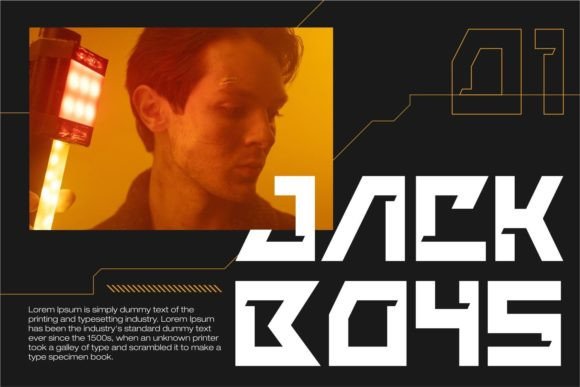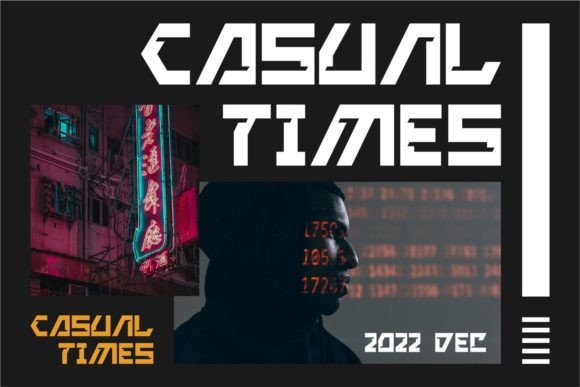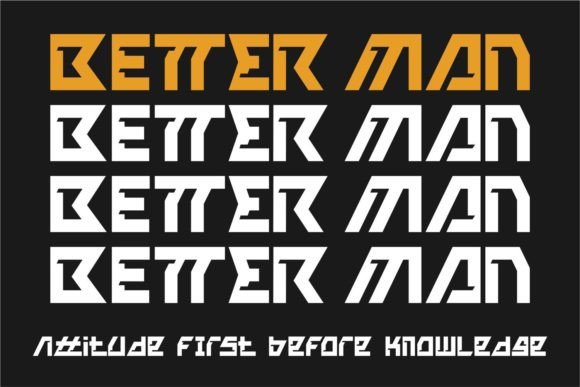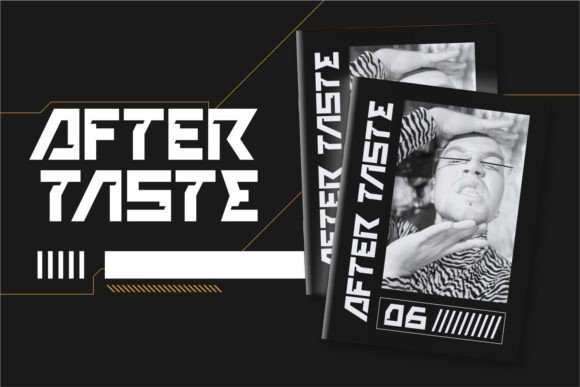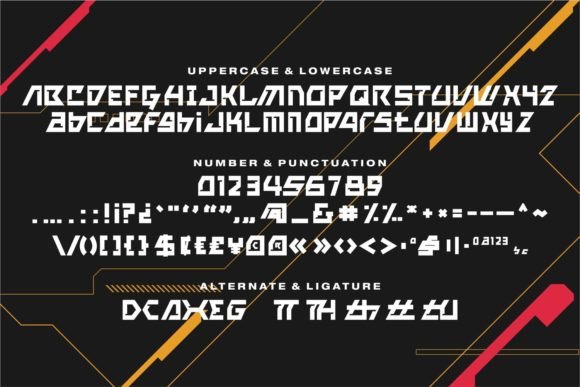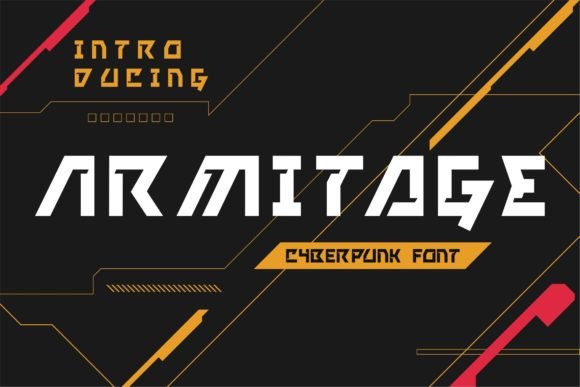
Introducing Armitage Font: The Ultimate Cyberpunk Display Font
In the world of typography, fonts play a crucial role in conveying the tone and aesthetic of a brand or project. For designers and crafters looking to add a touch of futurism and technology to their work, Armitage font is the perfect choice. This cyberpunk display font is designed to evoke a sense of precision, efficiency, and innovation, making it ideal for projects that require a high-tech edge.
The Design of Armitage Font
Armitage font boasts an angular and sleek design, characterized by sharp edges and clean lines. Its futuristic look is reminiscent of neon-lit cityscapes and cutting-edge technology. The font’s precision-crafted lines and curves create a sense of dynamism, making it perfect for attention-grabbing applications. Whether you’re designing a video game title, tech-related branding, or a sci-fi poster, Armitage font is sure to leave a lasting impression.
Key Features of Armitage Font
- Angular and sleek design: Armitage font features sharp edges and clean lines, giving it a futuristic and technological vibe.
- Precision-crafted: The font’s lines and curves are carefully crafted to create a sense of precision and efficiency.
- Cyberpunk aesthetic: Armitage font is perfect for projects that require a touch of high-tech, such as video game titles, tech-related branding, or sci-fi posters.
- Highly versatile: The font can be used for a wide range of applications, from digital media to print materials.
Use Cases for Armitage Font
Armitage font is perfect for designers and crafters working on projects that require a futuristic and technological edge. Some potential use cases include:
- Video game titles: Add a touch of cyberpunk flair to your game title with Armitage font.
- Tech-related branding: Use Armitage font to create a high-tech brand identity that’s sure to stand out.
- Sci-fi posters: Create eye-catching posters for sci-fi movies, TV shows, or books with Armitage font.
- Digital media: Use Armitage font in digital media, such as social media graphics, website headers, or mobile app icons.
Why Choose Armitage Font?
With so many fonts available, why choose Armitage font for your project? Here are a few compelling reasons:
- Unique aesthetic: Armitage font offers a distinctive cyberpunk aesthetic that’s sure to set your project apart.
- High-quality design: The font is precision-crafted to ensure high-quality rendering, even at large sizes.
- Easy to read: Despite its futuristic design, Armitage font is easy to read, making it perfect for body text and headlines.
In conclusion, Armitage font is the perfect choice for designers and crafters looking to add a touch of futurism and technology to their projects. Its angular and sleek design, precision-crafted lines, and cyberpunk aesthetic make it ideal for a wide range of applications. Whether you’re working on a video game title, tech-related branding, or sci-fi poster, Armitage font is sure to leave a lasting impression. So why wait? Download Armitage font today and take your project to the next level!